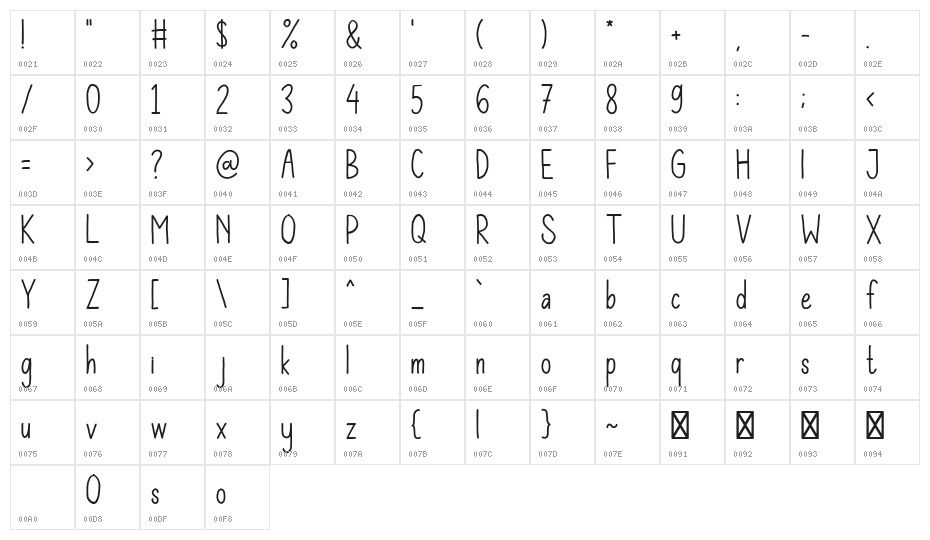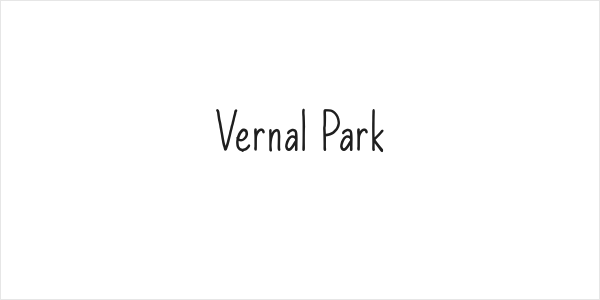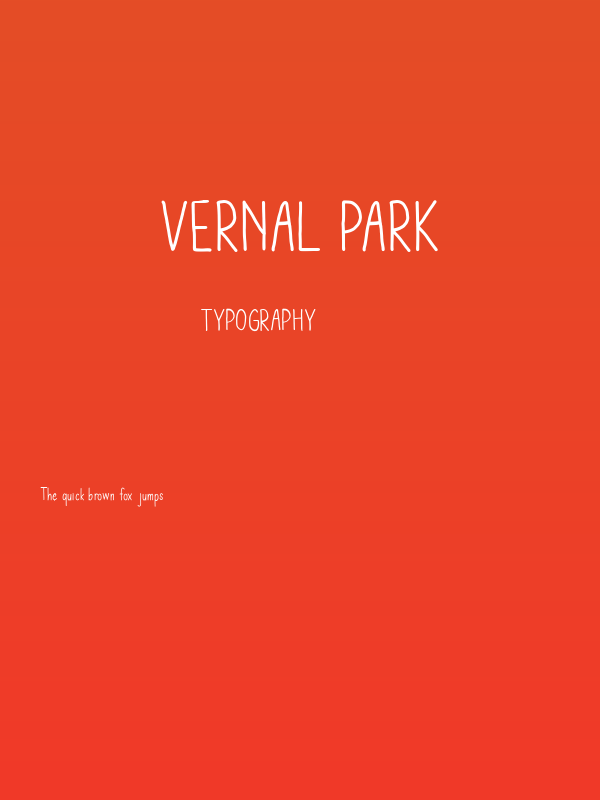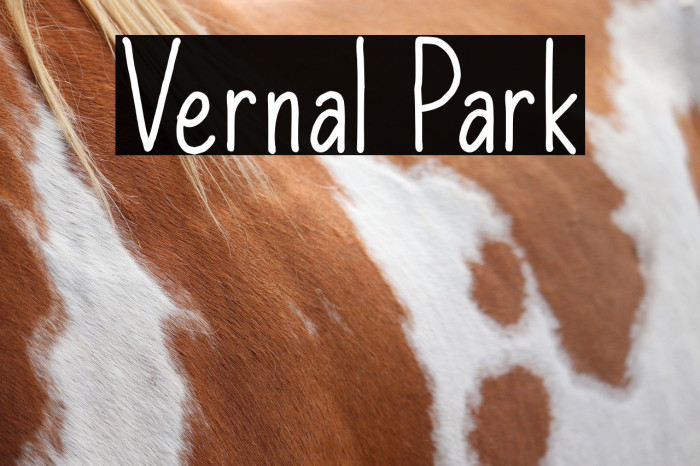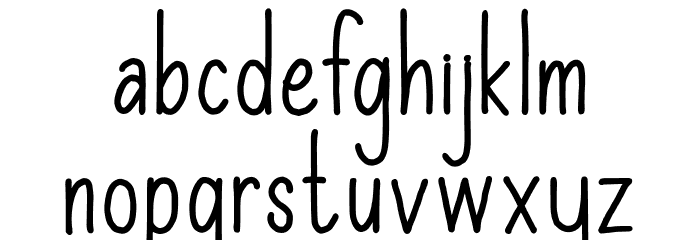
Vernal Park Font
Vernal Park Description
This font features a playful and casual handwritten style, characterized by its tall, narrow letters with rounded edges. The strokes are consistent in width, giving it a uniform appearance while maintaining a friendly and approachable feel. The uppercase and lowercase letters are well-proportioned, with a slight slant that adds to its informal charm. The numerals and special characters are designed to match the overall aesthetic, making it versatile for various uses. Its simplicity and readability make it suitable for both digital and print media, where a personal touch is desired.
| Use Case | Headlines, Informal text, Branding |
| Proposed Projects | Ideal for greeting cards, children's books, casual branding, and social media graphics. |